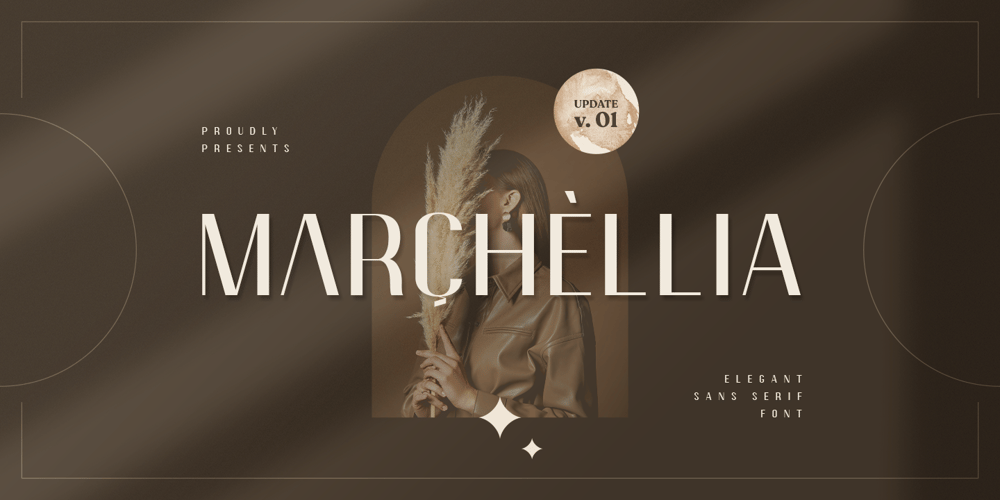
Marchellia
Marchellia font
Marchellia Font Family was designed by Toni Setiawan and published by Namara Creative Studio. Marchellia contains 4 styles and family package options. Marchellia is modern serif font with luxurious style. Come with 4 variant to choose, Regular, Italic, Outline and Rounded. It’s perfect for headlines, logos, quotes, packaging, magazine covers, editorial design, and many project with suitable purpose to making art/design project look pretty and trendy.Features : Alternates, Ligatures and Multilingual Support. Elegant and Luxurious Style.